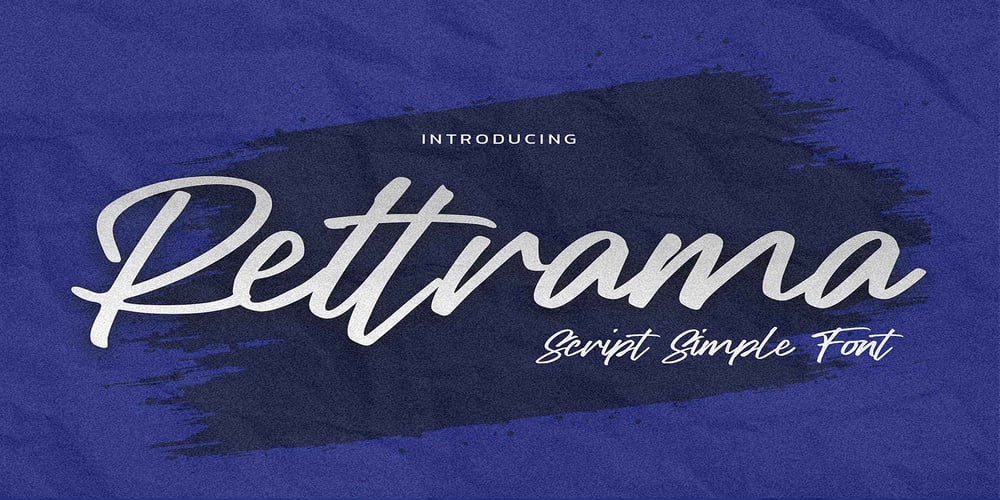
Rettrama Font Family was designed by Abdul Malik Wisnu, Anang Fibriyanto and published by Gassstype. Rettrama contains 1 styles and family package options. Hello Everyone, introduce our new product Font Rettrama This Is Simple Script Display Font .This is a Textured Natural Style and classy style with a clear style and dramatic movement.This font Rettrama is great for your next creative project such as logos, printed quotes, invitations, cards, You can activate 16 Ligatures glyphs OpenType panel.